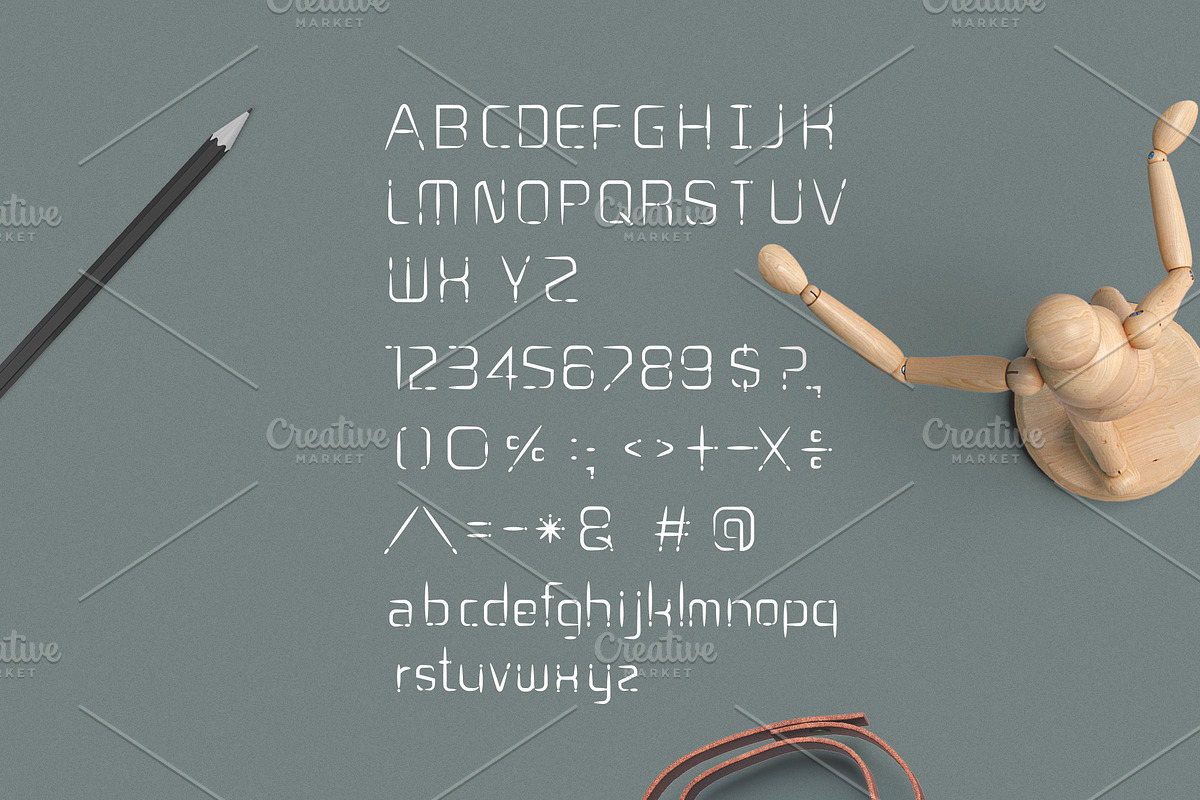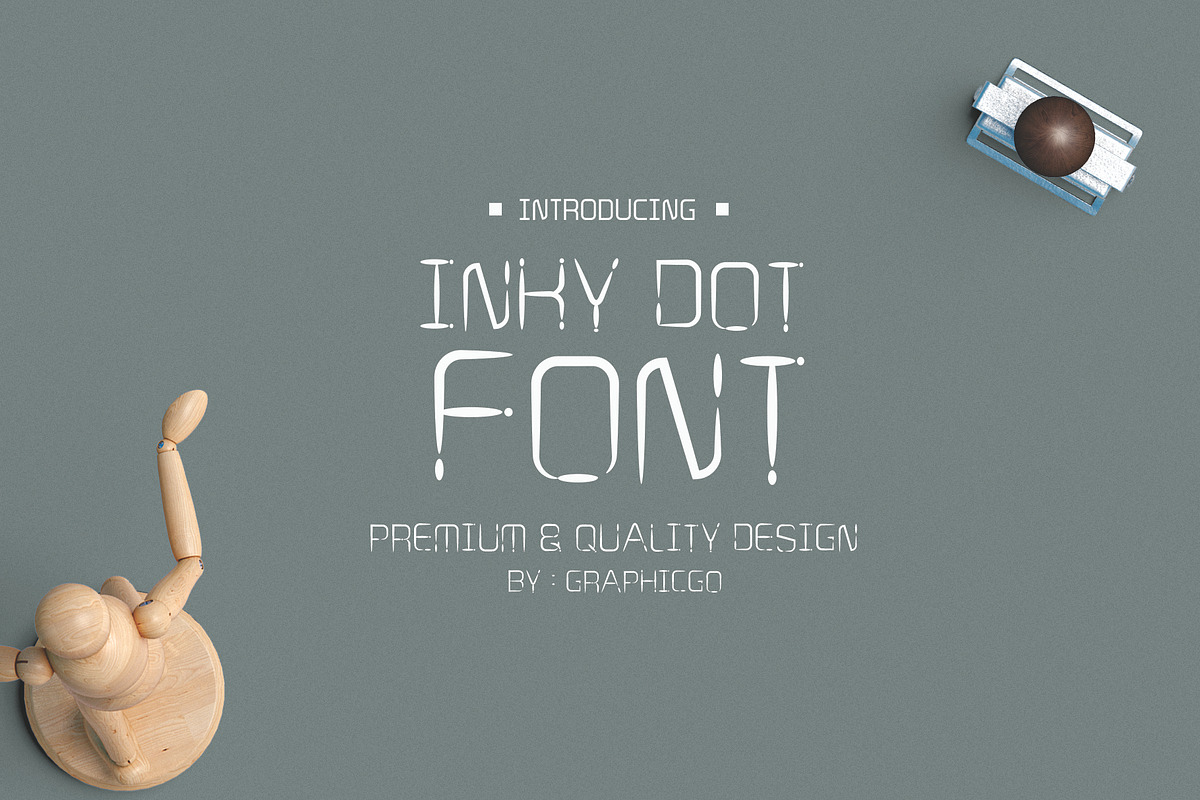
Inky Dot Font
Inky Dot Font is ink brush with ink drop writing style. It 's perfect for any products, cards, posters, wall art, branding, diy projects, greeting cards, labels, quotes, packaging, websites and much more.
Uppercase and Lowercase
Why Inky Dot Font is worth a look
Inky Dot Font by Graphicgo fits naturally into Branding, posters, packaging, typography.